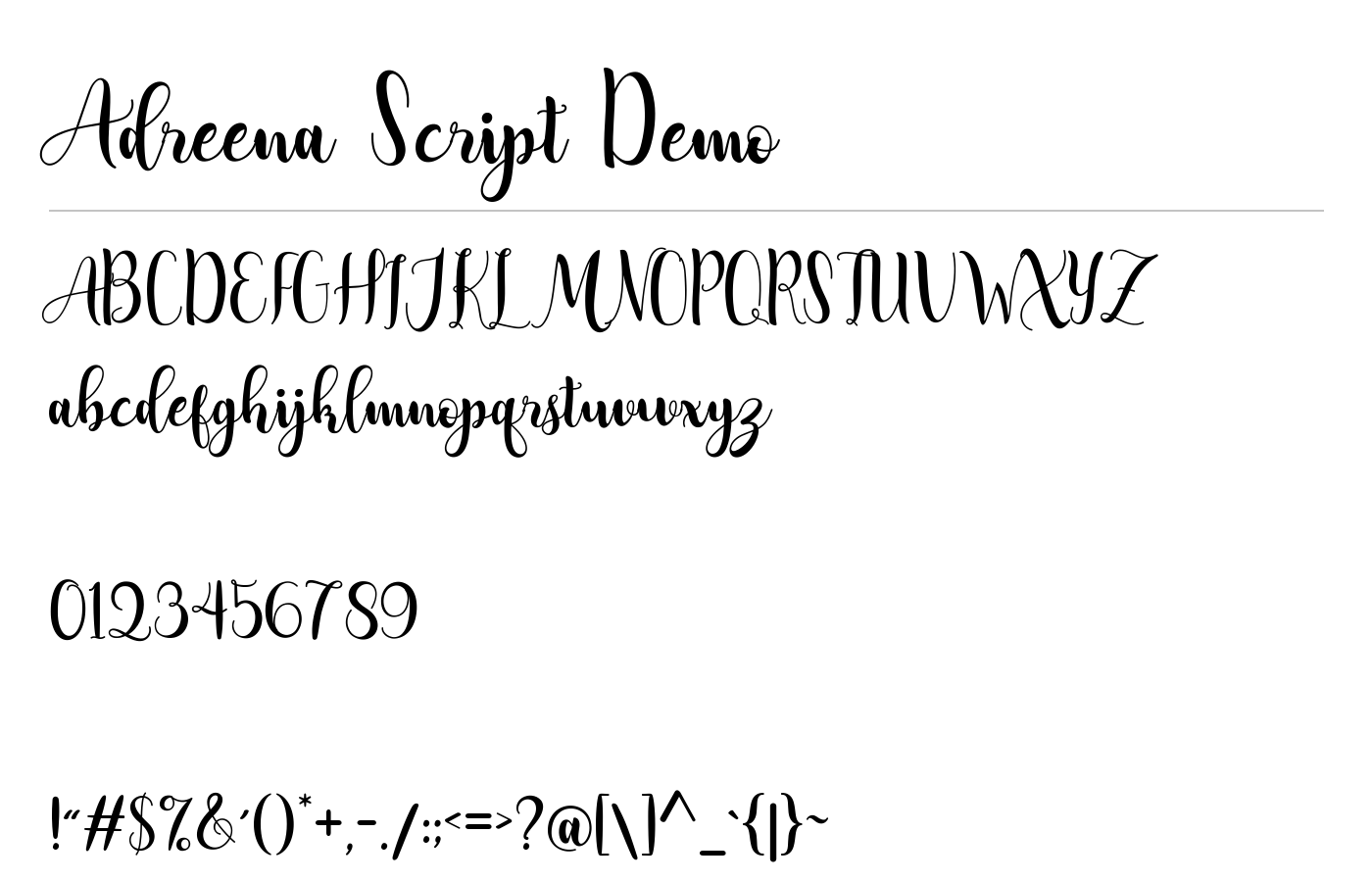
Adreena Script Demo is an elegant and playful script font featuring smooth, flowing strokes with moderate contrast and delicate swashes that add a charming, handcrafted feel. Its tall, slender letterforms and distinctive uppercase characters make it perfect for creative branding, invitations, and stylish headlines where a personal and artistic touch is desired. This font works best in designs that aim to convey warmth, sophistication, and a sense of uniqueness.
Adreena Script Demo Font
About Adreena Script Demo Font